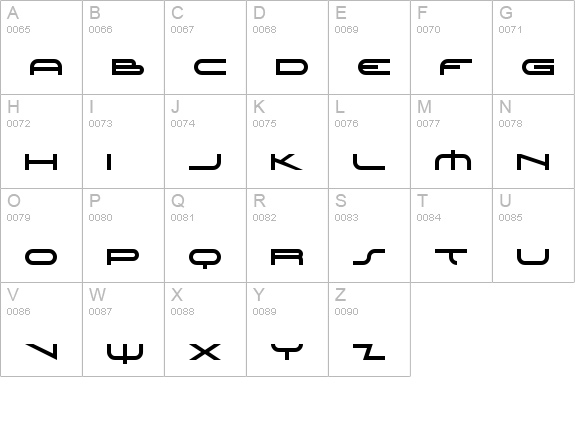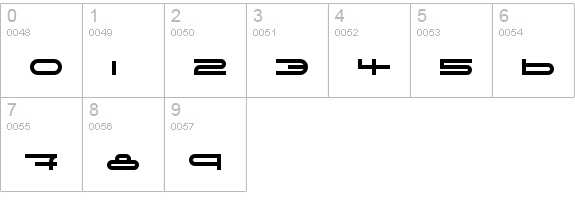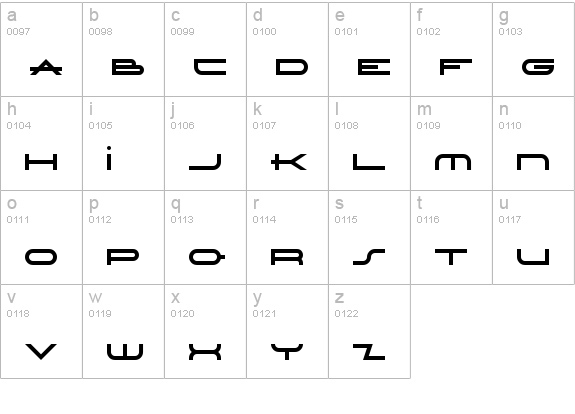
TLC Fan Mail Font Details
Introducing the exquisite and captivating TLC Fan Mail font, a true ode to elegance and sophistication. This font embodies the essence of TLC's beloved music, exuding a harmonious blend of classic and contemporary design elements. Its smooth curves and graceful strokes create a captivating visual experience that will leave lasting impressions. TLC Fan Mail font is not only visually stunning, but also practical and versatile. Its clean and legible letterforms make it perfectly suitable for a wide range of creative projects, from branding and logo design to editorial layouts and social media graphics. Whether you're aiming for a bold statement or a subtle touch of refinement, this font has got you covered. But what truly sets TLC Fan Mail font apart is its unique offering – it is absolutely free to download at FontsMarket.com. Yes, you heard it right! This font is freely available, allowing you to unleash your creativity without any constraints. No need to worry about breaking the bank or compromising on quality; TLC Fan Mail font delivers both effortlessly. So why wait? Elevate your designs to new heights with TLC Fan Mail font, a timeless typeface that embodies the spirit of TLC's iconic music. Download it for free today at FontsMarket.com and embark on a journey of endless creative possibilities.